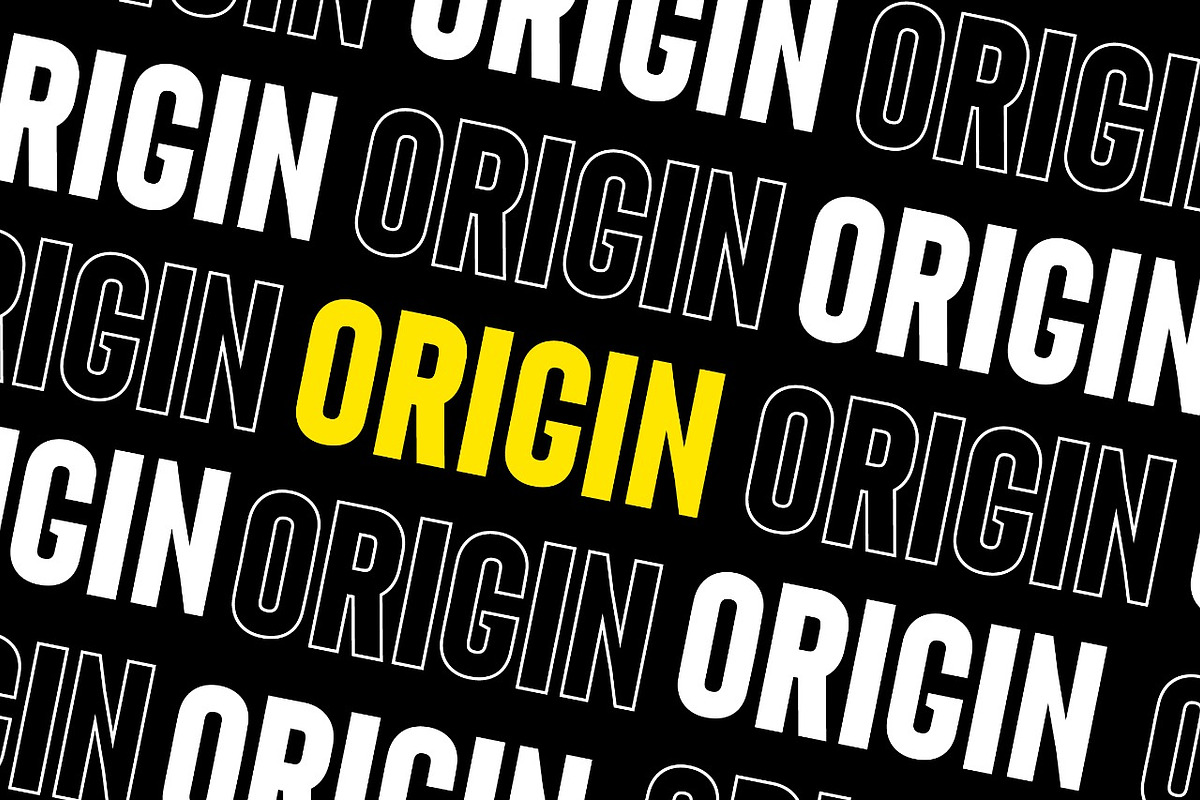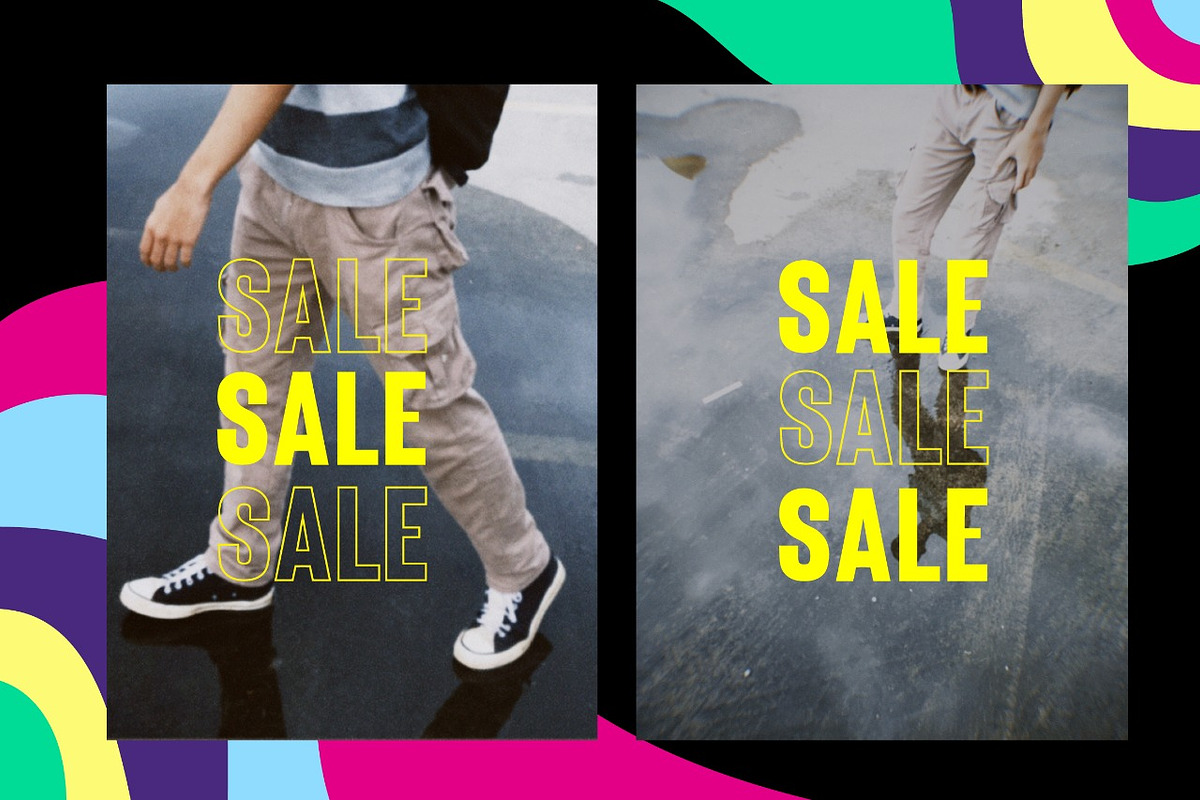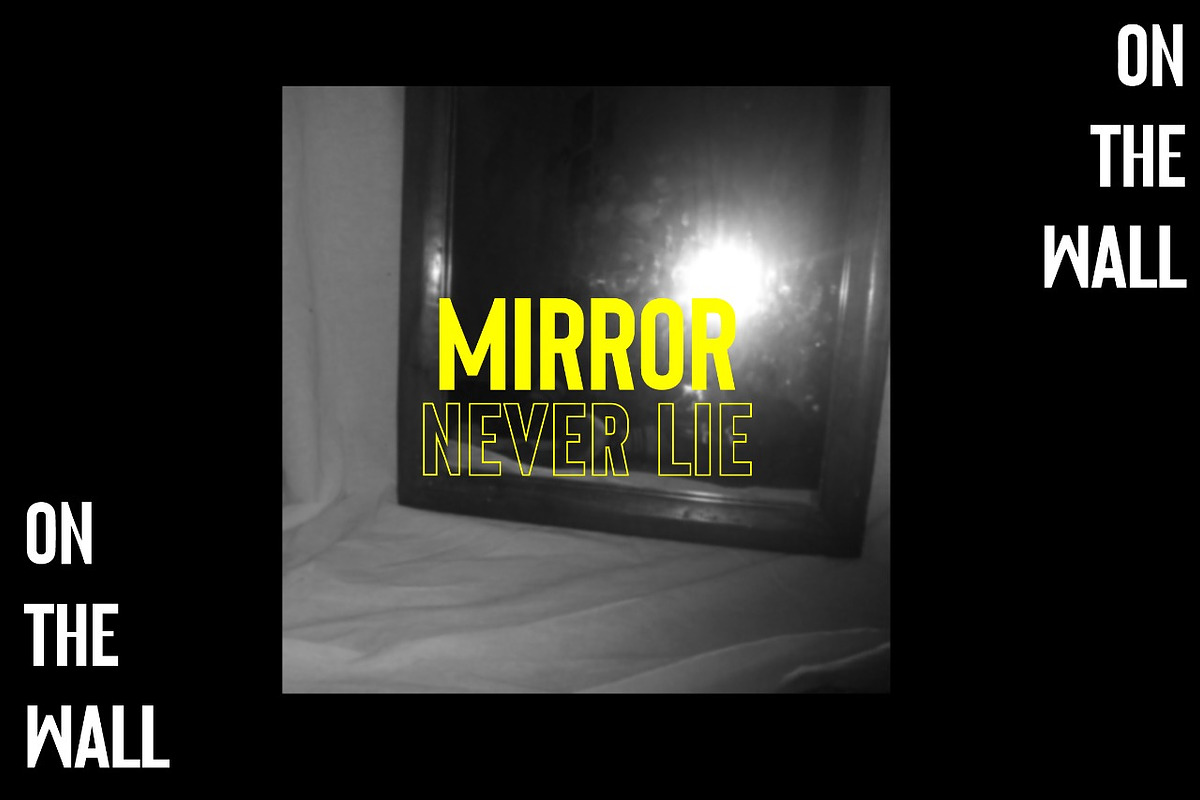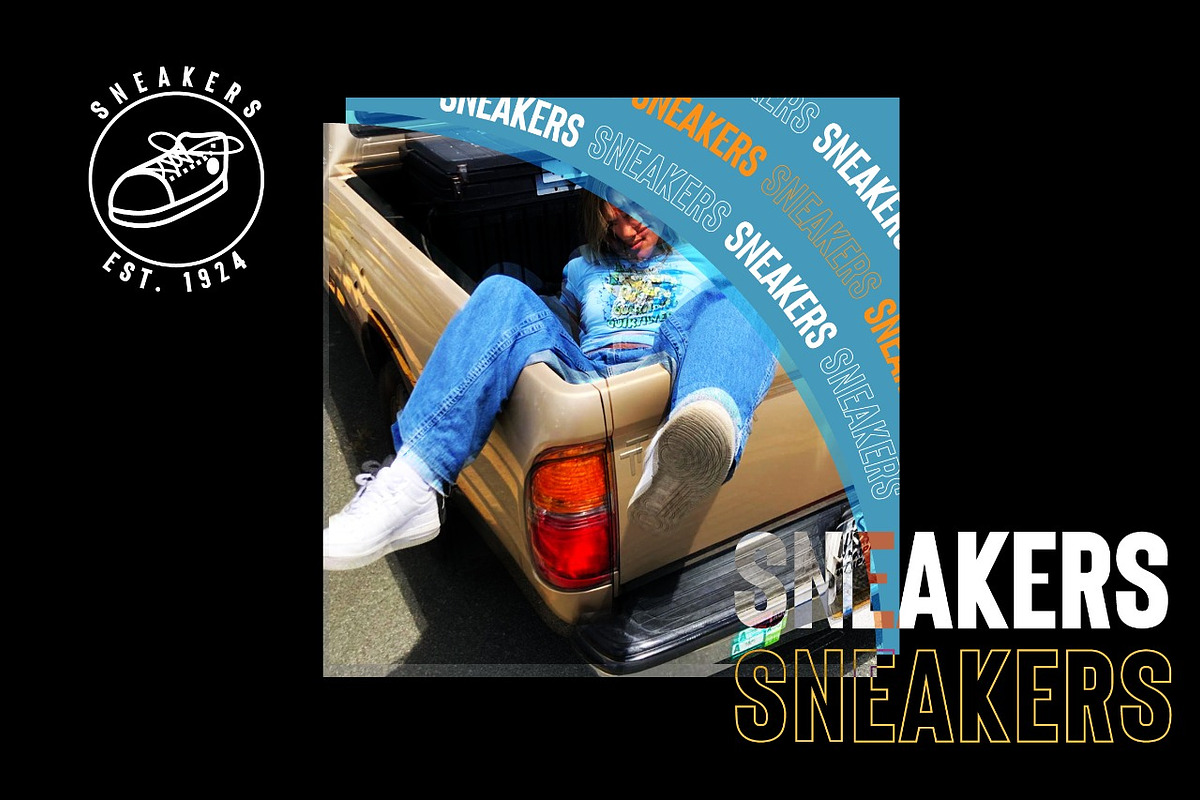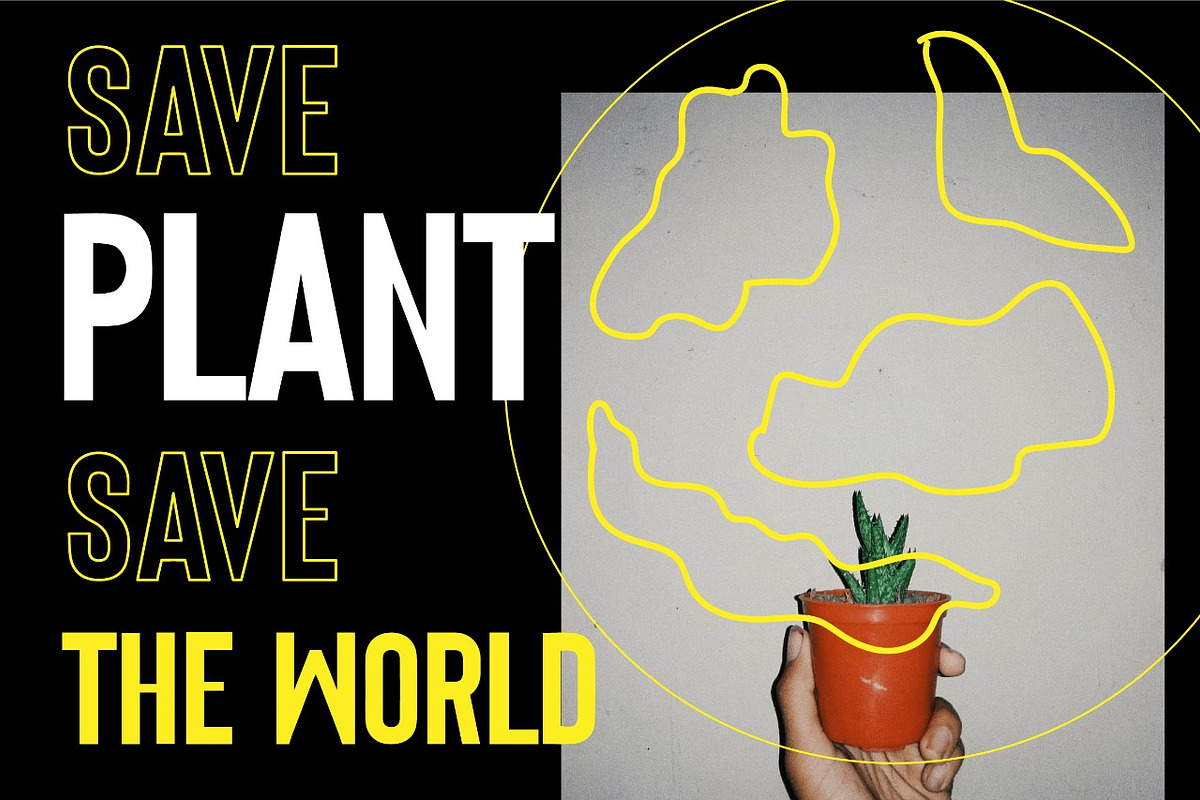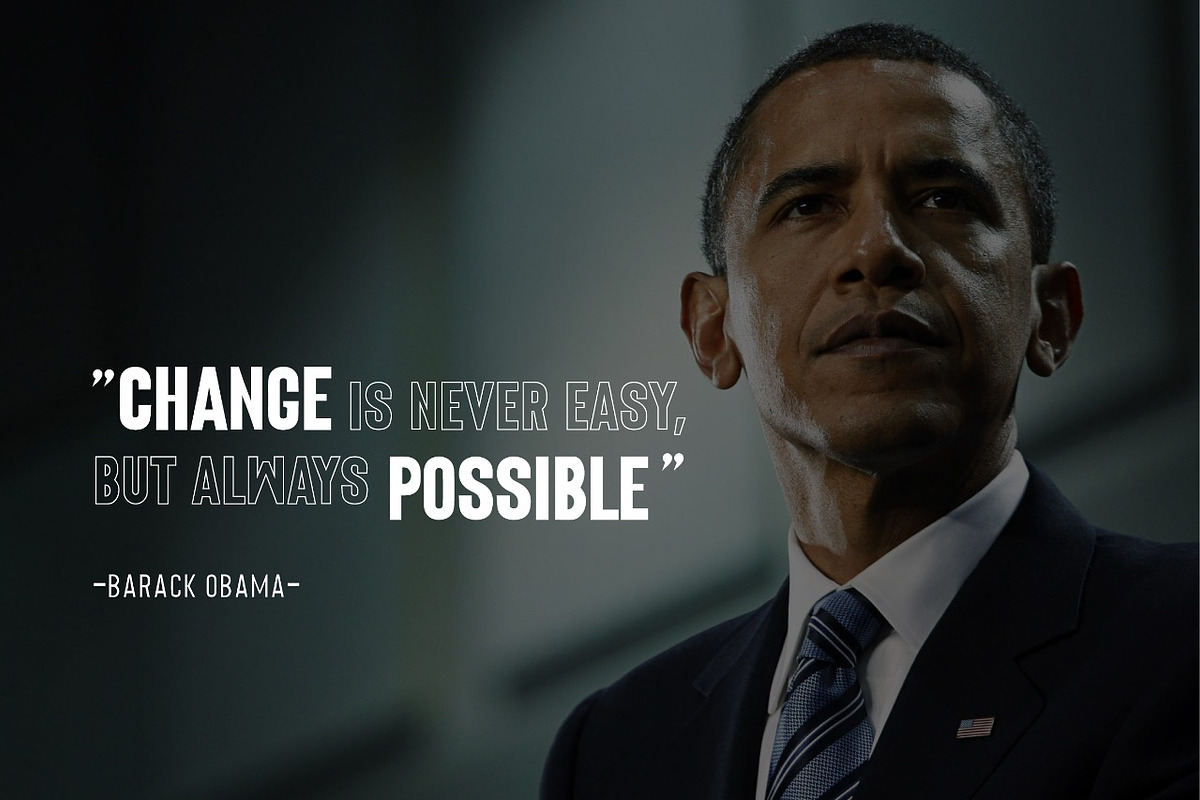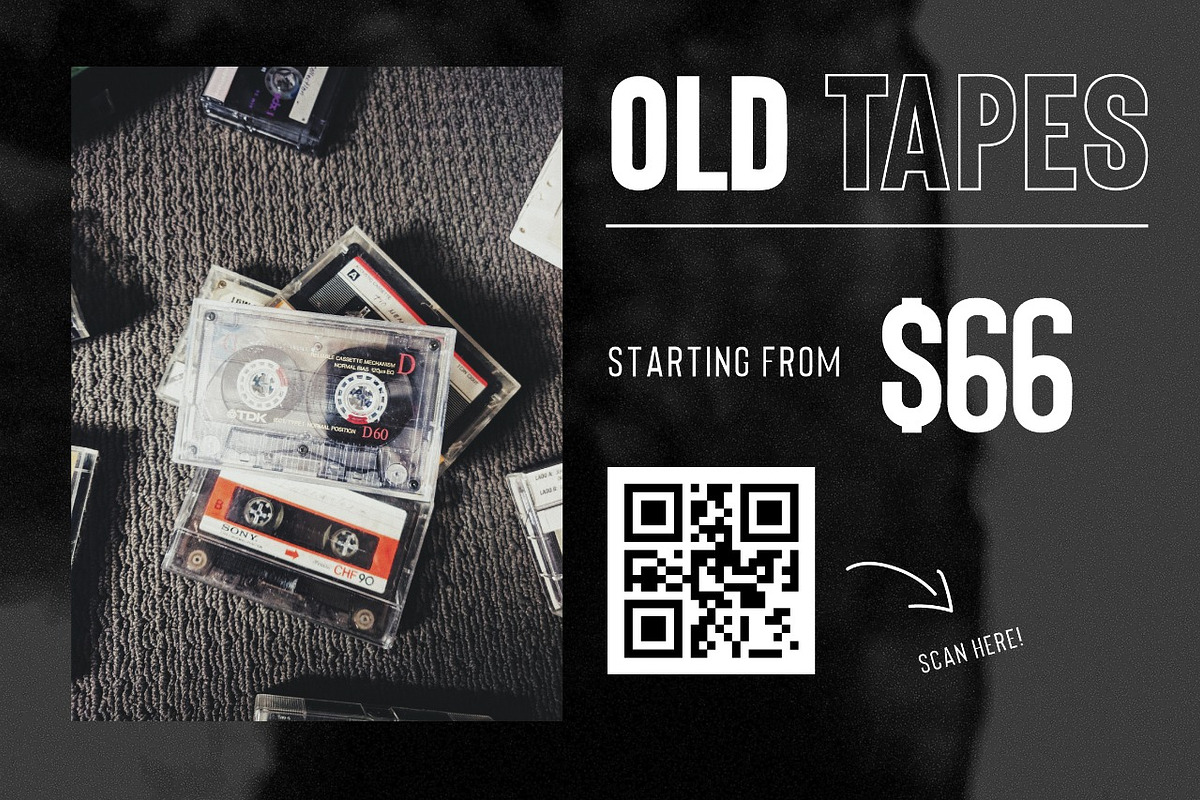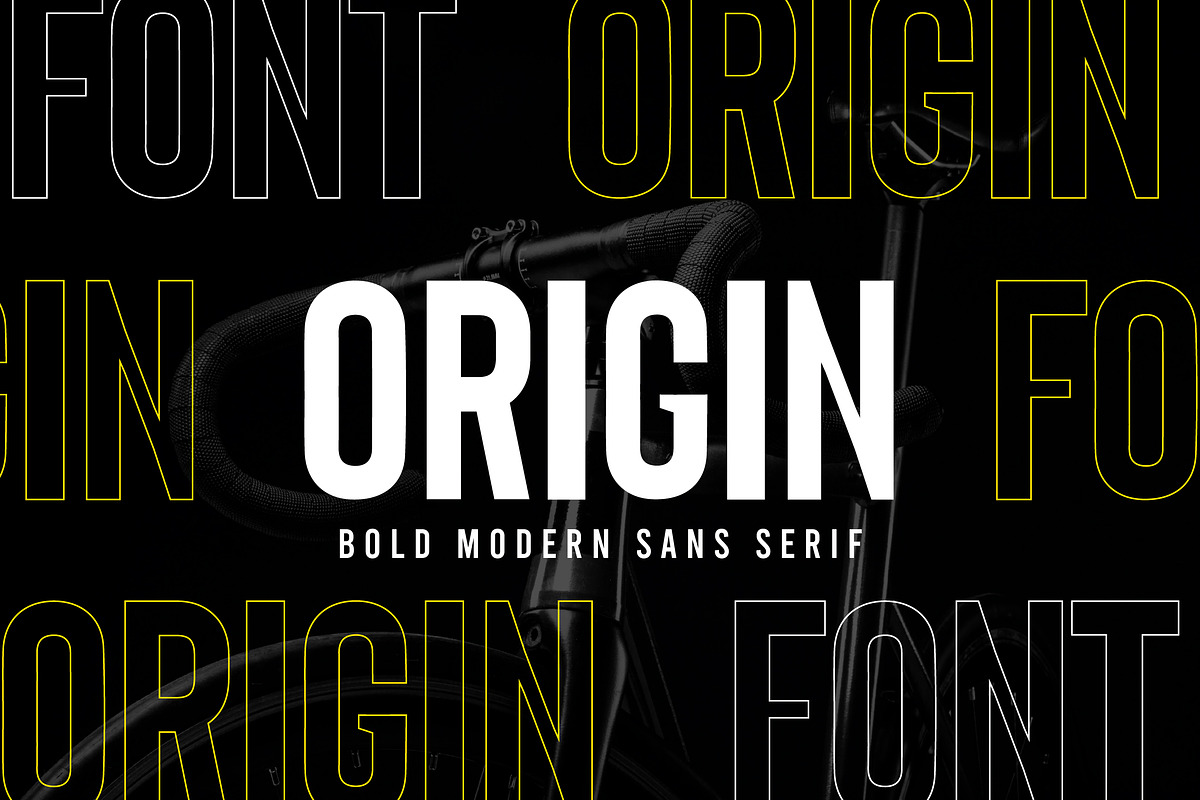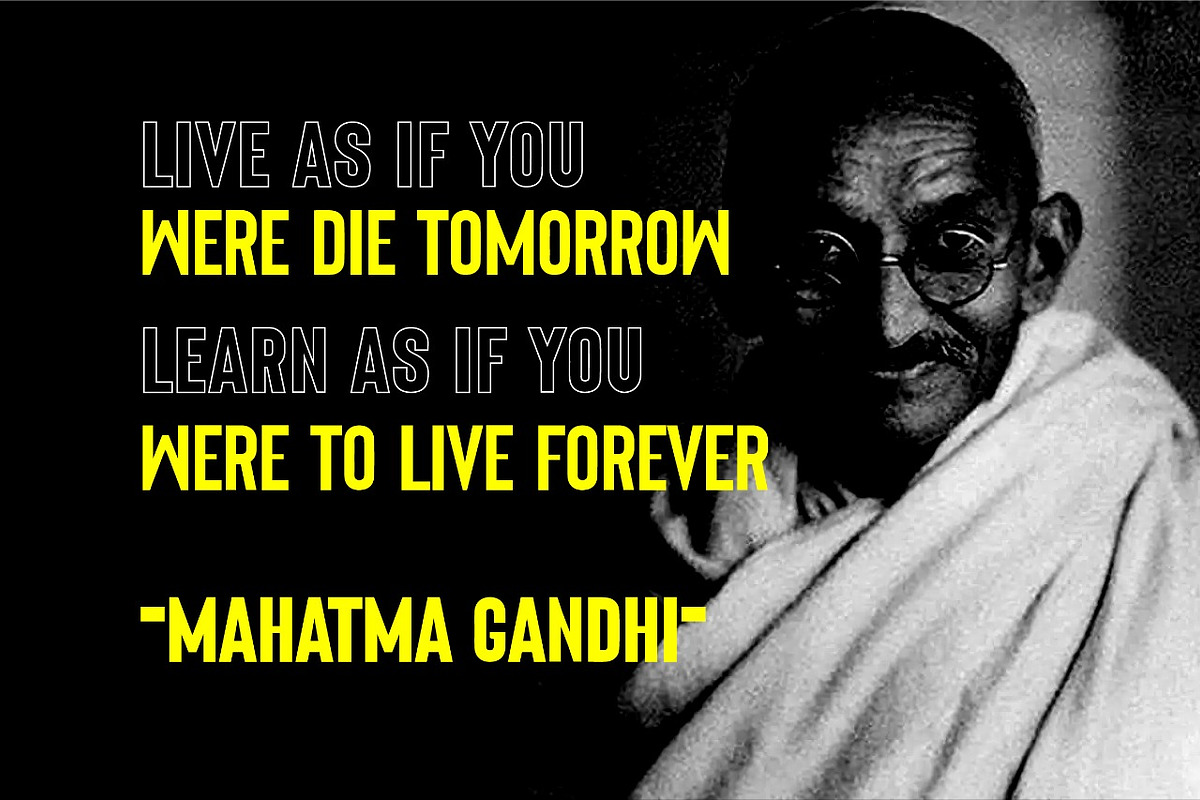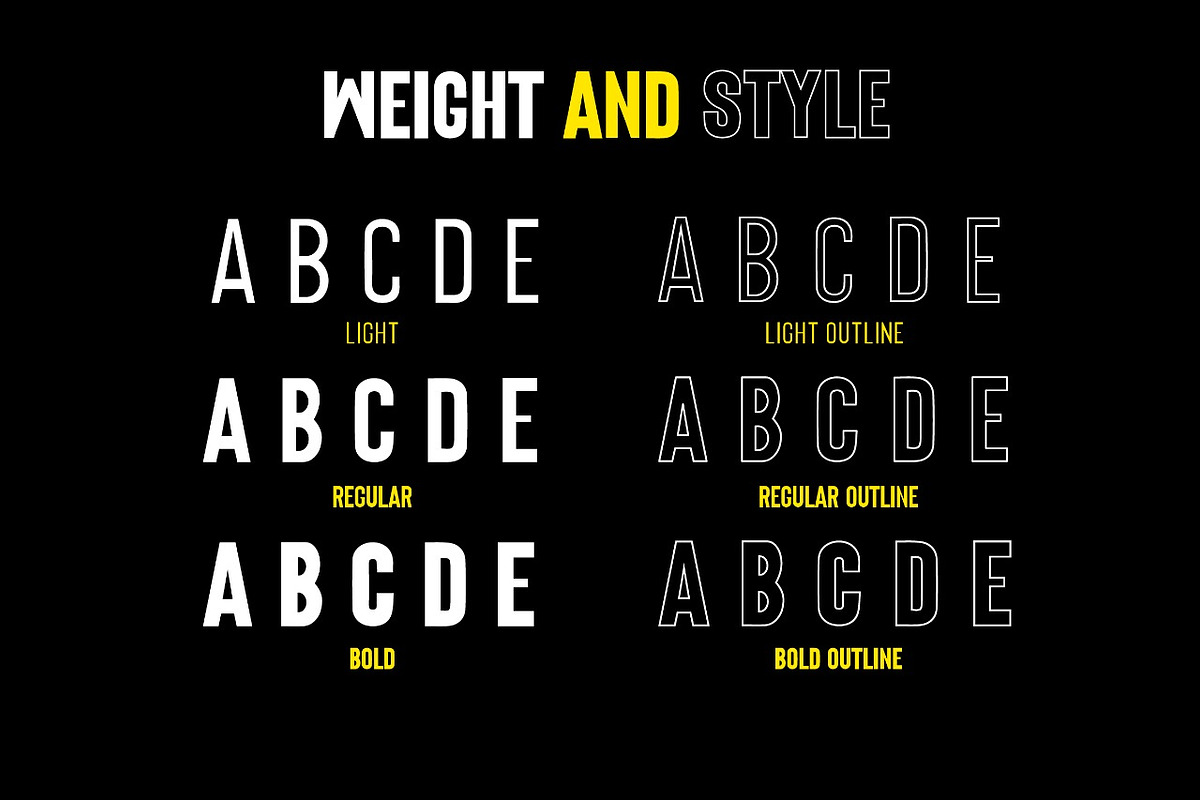
Origin - Bold Retro Sans Serif
Origin is a Bold Retro Sans Serif font with. It's a very versatile font that works great in large and small sizes. Perfect for branding projects, Logo design, Clothing Branding, product packaging, magazine headers, or simply as a stylish text overlay to any background image.
- 6 Weights font
- Multiple Languages Supported